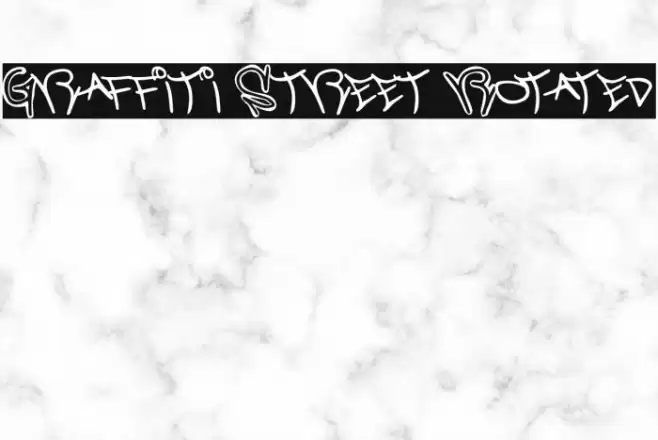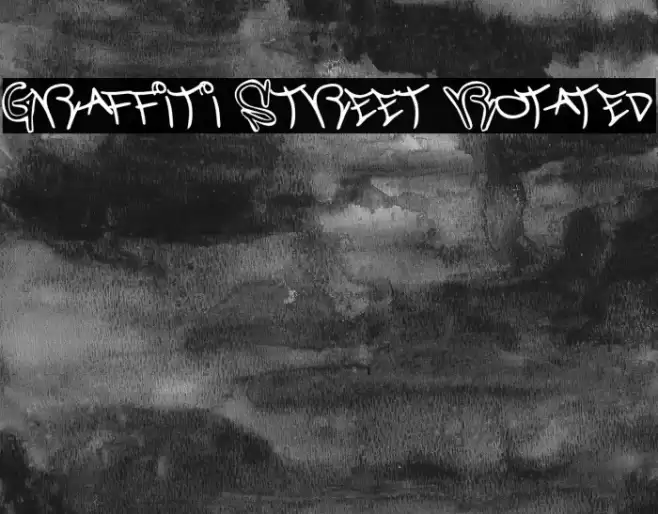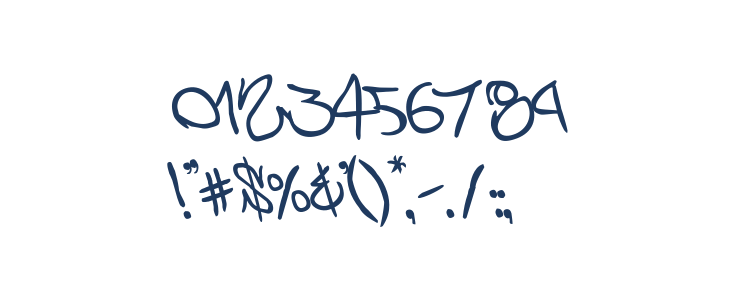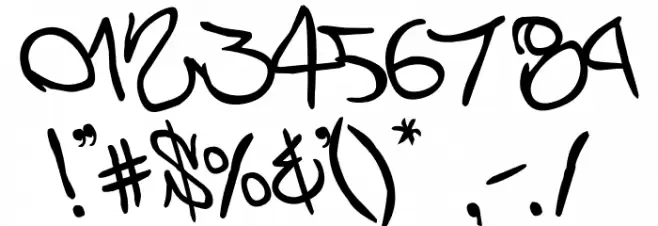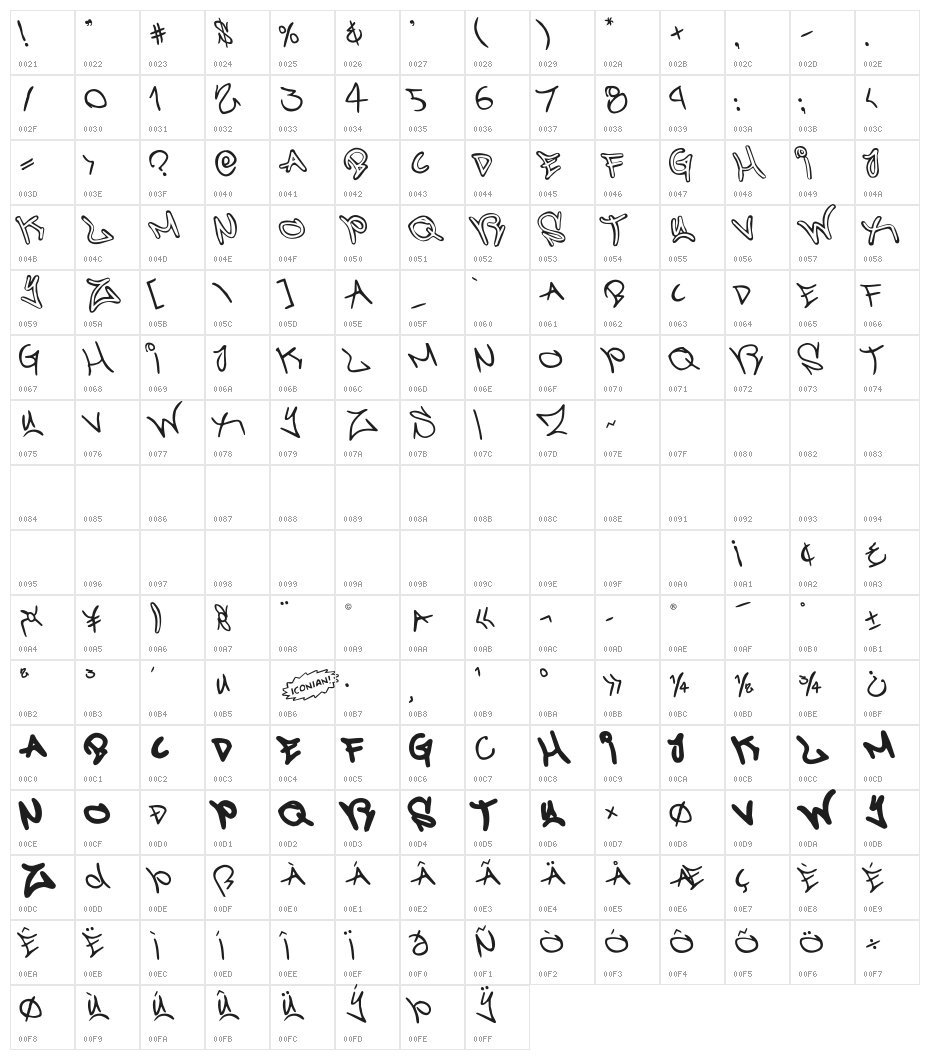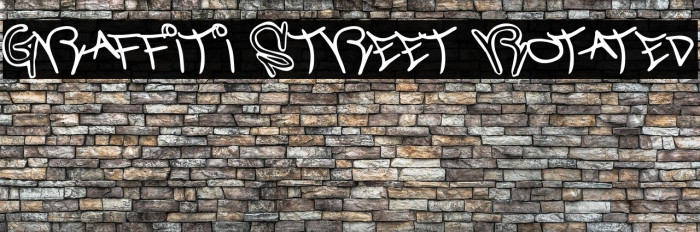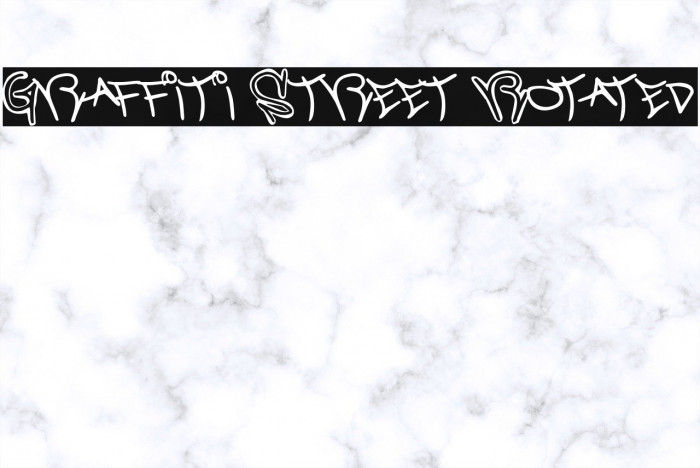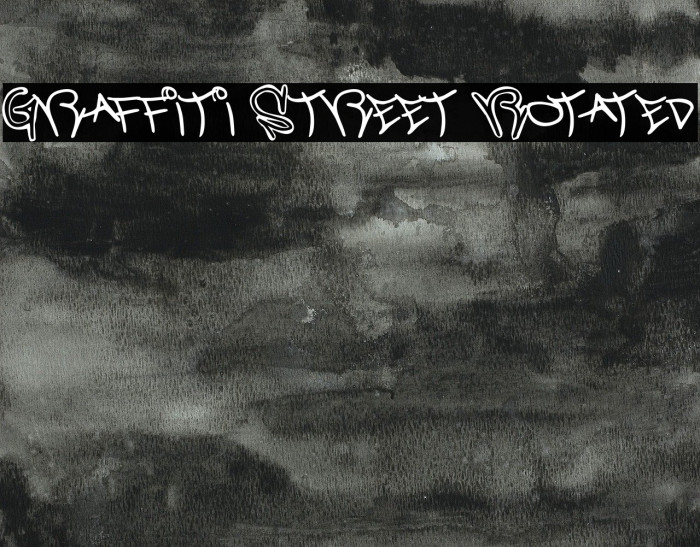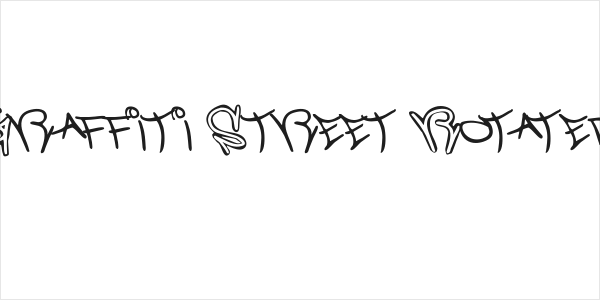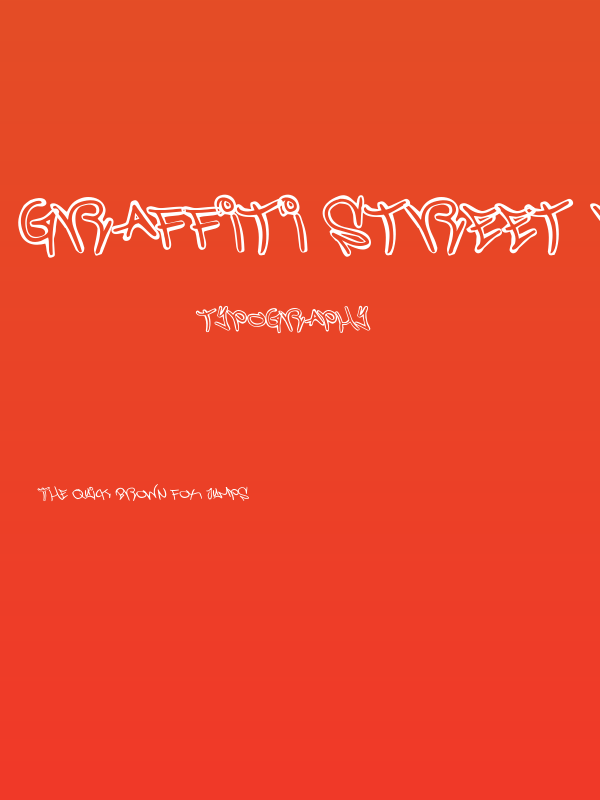
Graffiti Street Rotated Font
Graffiti Street Rotated Description
This font embodies the raw, expressive style of street graffiti, characterized by its bold, angular lines and dynamic, flowing curves. Each letter is uniquely stylized, giving an impression of movement and energy. The uppercase and lowercase letters maintain a consistent aesthetic, with exaggerated serifs and strokes that mimic the spontaneous nature of spray-painted art. Numbers and special characters follow the same design ethos, ensuring a cohesive look across all elements. The font's irregular shapes and varied line thicknesses contribute to its edgy, urban feel, making it ideal for projects that aim to capture the essence of street culture.
A bold, graffiti-inspired font with dynamic, angular lines and an urban aesthetic from Uncategorized fonts.
- Proposed Projects: Ideal for street art projects, urban-themed designs, music album covers, and edgy branding materials.
- Overall Style: Urban, Edgy, Expressive
- Use Case: Logos, Posters, Album Covers, Street Art